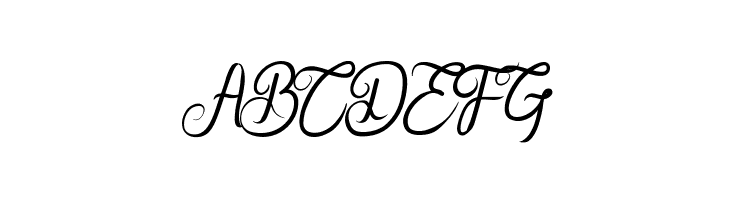
Quinneshademo Italic Font
An elegant, flowing script font with ornate, cursive letterforms and italic styling.
Quinneshademo Font
An elegant and decorative script font with intricate loops and flourishes.